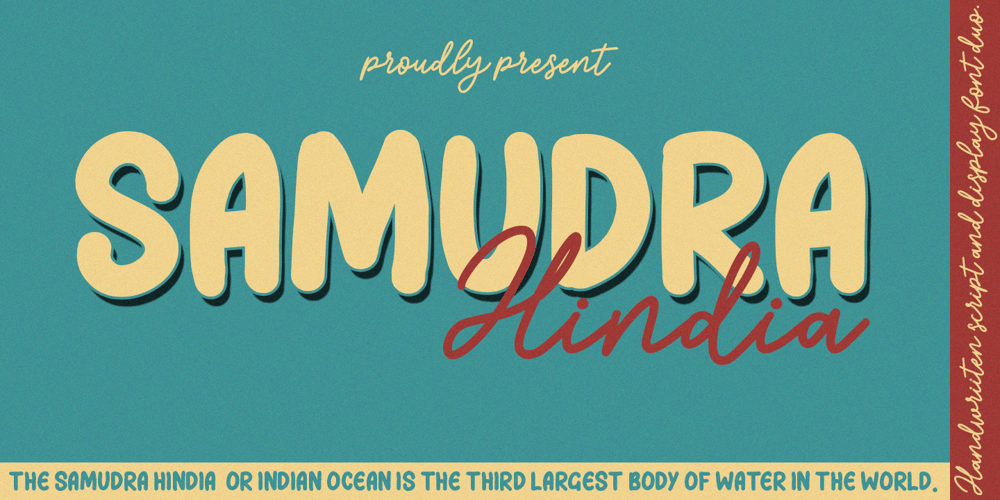
Samudra Hindia Font Family was designed by Andri Kurniawan and published by Struggle Studio. Samudra Hindia contains 2 styles and family package options. Samudra Hindia – is a Duo Font (Monoline and Display), featuring a vintage and soft look. This original look will attract a variety of crafty ideas, from branding and titles to stationery.